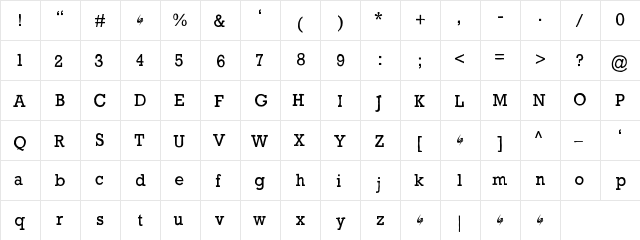
Gycentium Popwell Regular
Design Context for Gycentium Popwell Typeface
Gycentium Popwell offers clean, dependable letterforms without strong stylistic allegiance, making it a practical choice for designers who need flexibility.